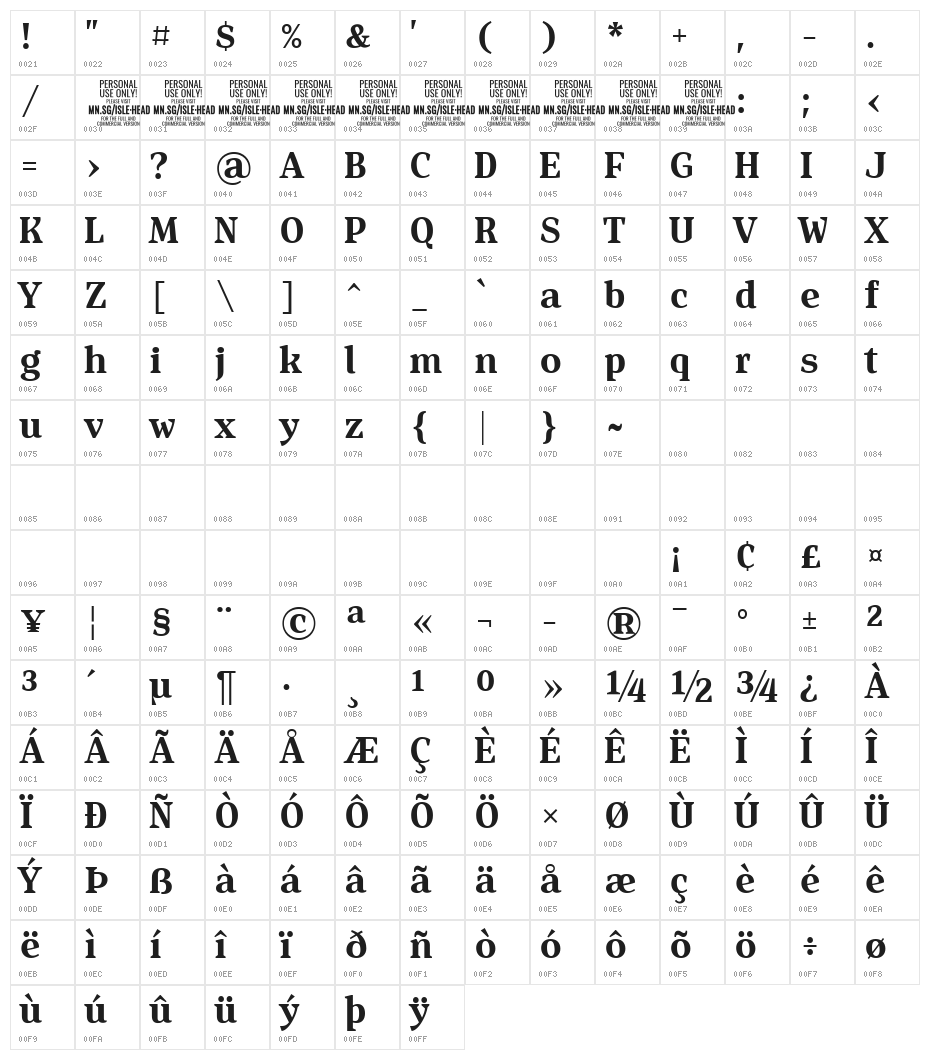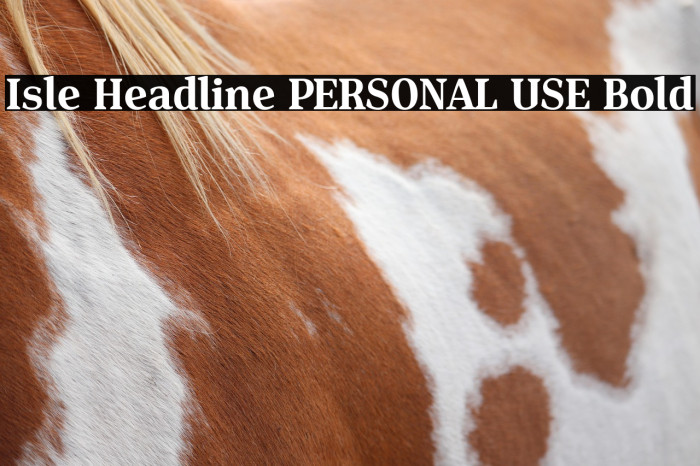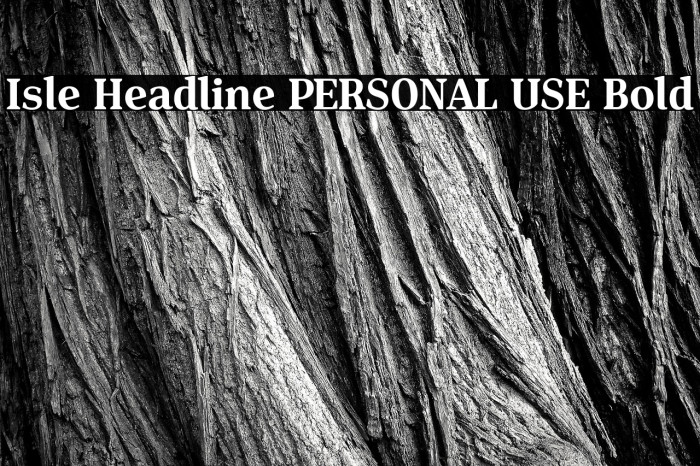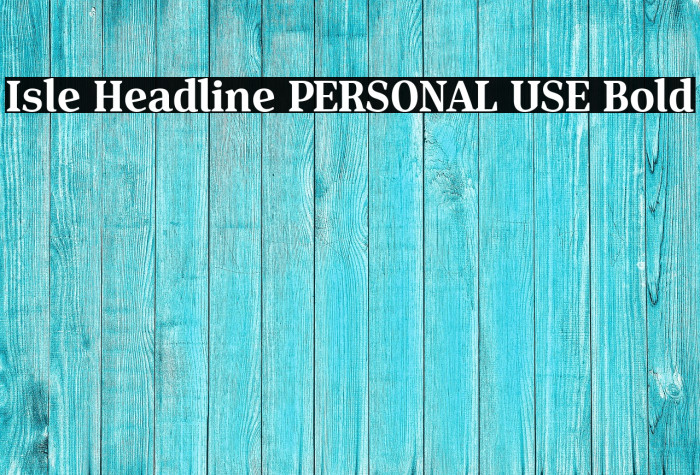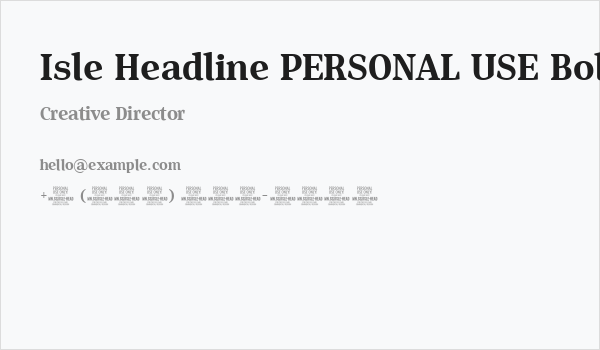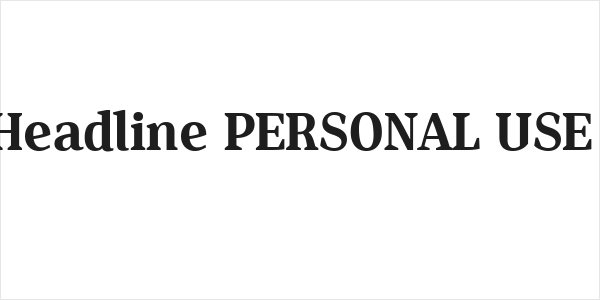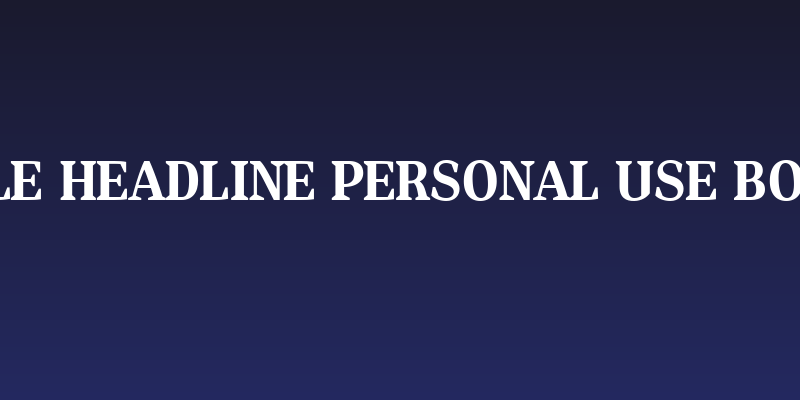
Isle Headline PERSONAL USE Bold Font
Isle Headline PERSONAL USE Bold Description
This font features a bold and commanding presence, characterized by thick, strong strokes and a classic serif design. The uppercase letters are particularly striking, with a traditional serif style that conveys a sense of authority and elegance. The lowercase letters maintain a consistent weight, ensuring readability while retaining the bold aesthetic. The numerals and special characters are crafted with the same attention to detail, making them suitable for a variety of uses. The overall design is balanced and harmonious, with a slight vintage touch that adds character without compromising modern appeal.
| Proposed Projects | Ideal for headlines, posters, branding, and editorial design where a strong and classic serif presence is desired. |